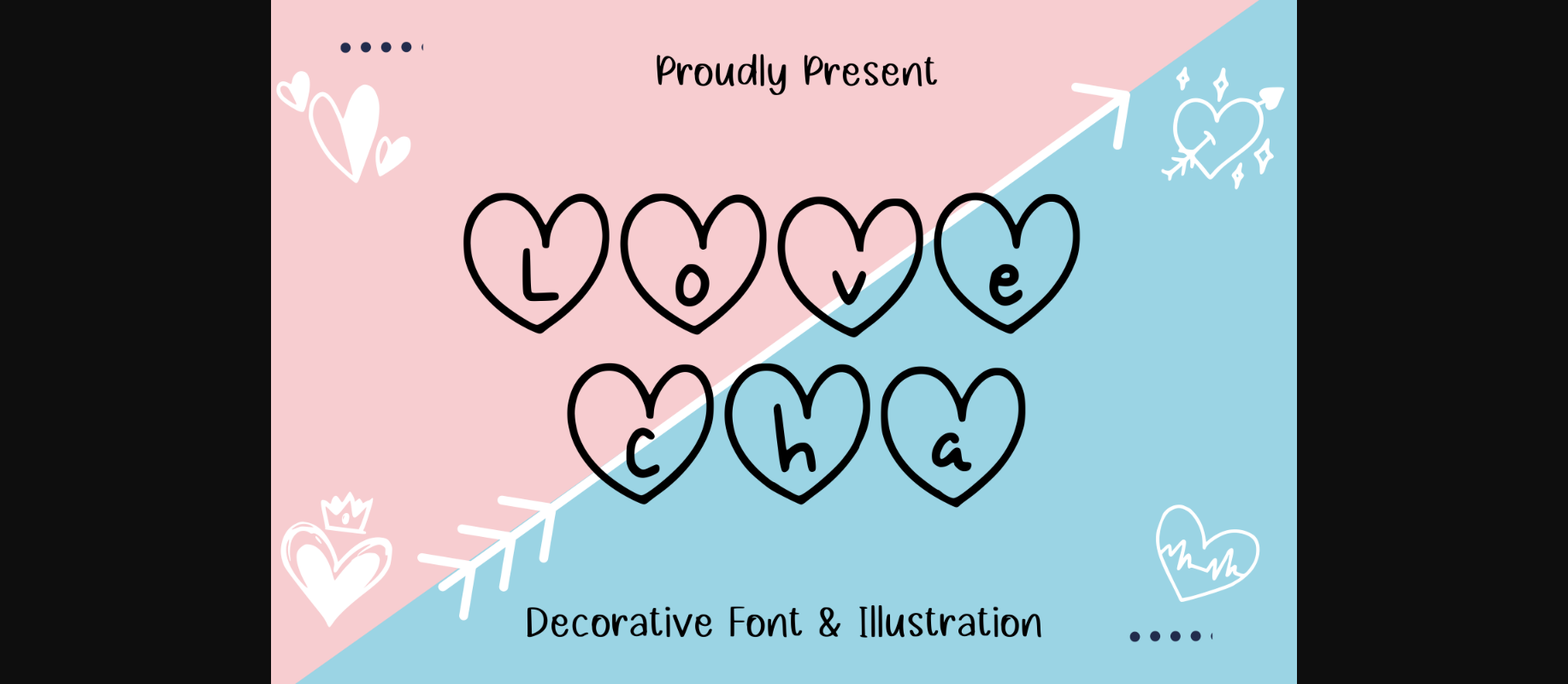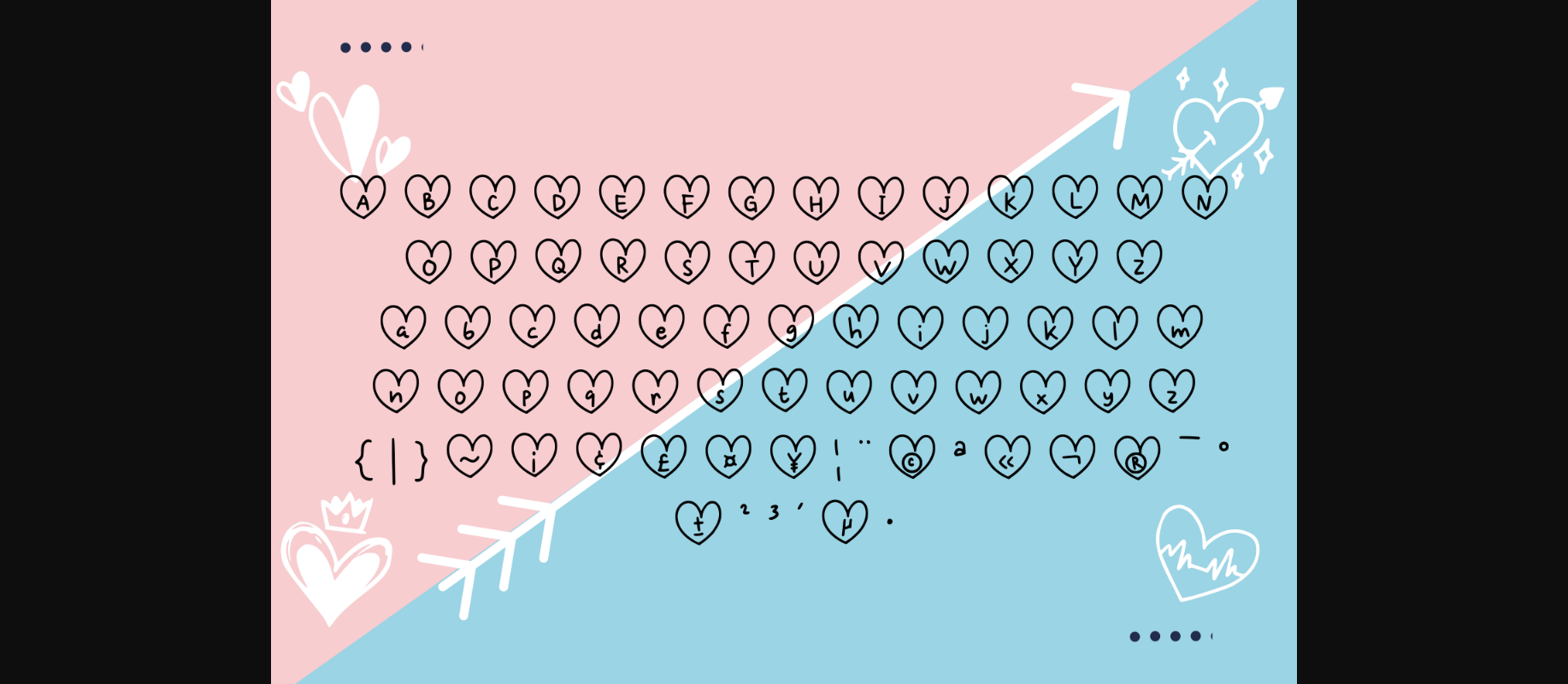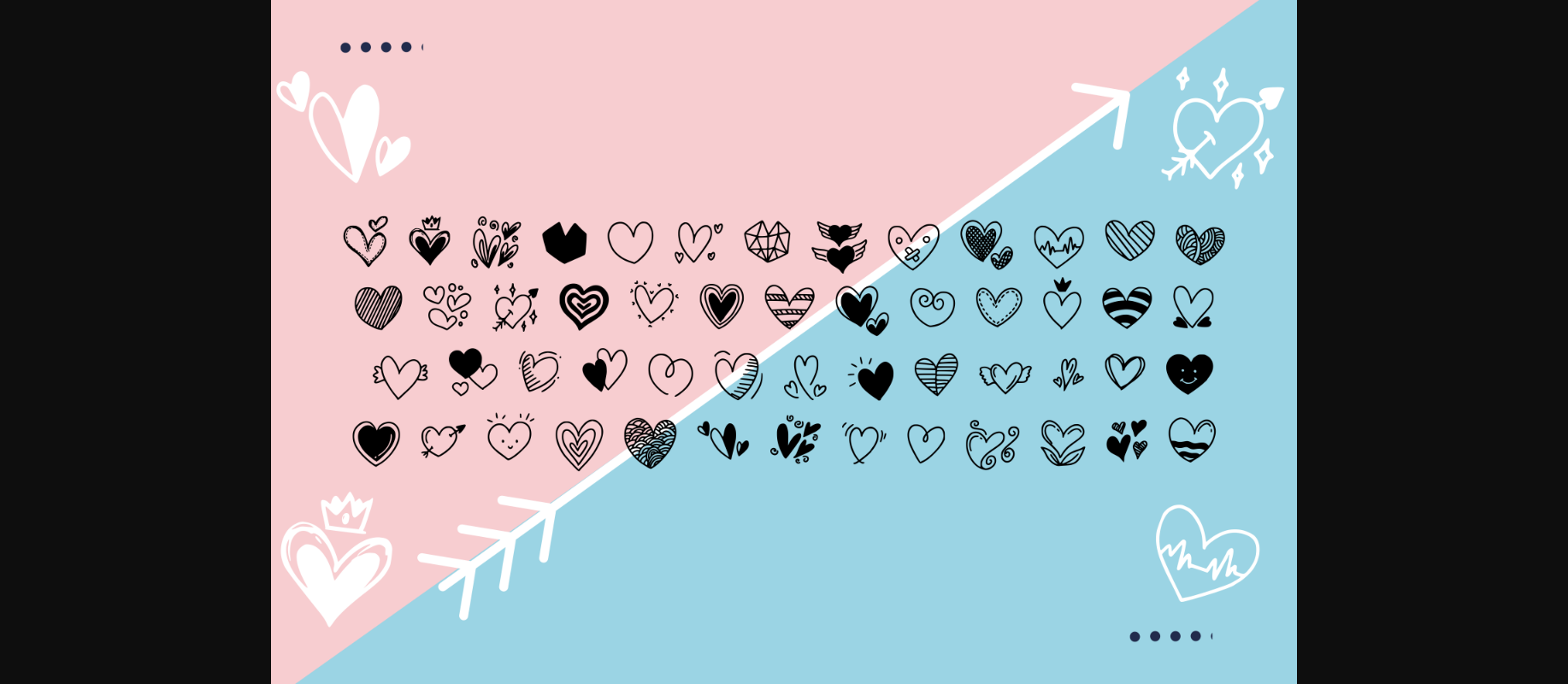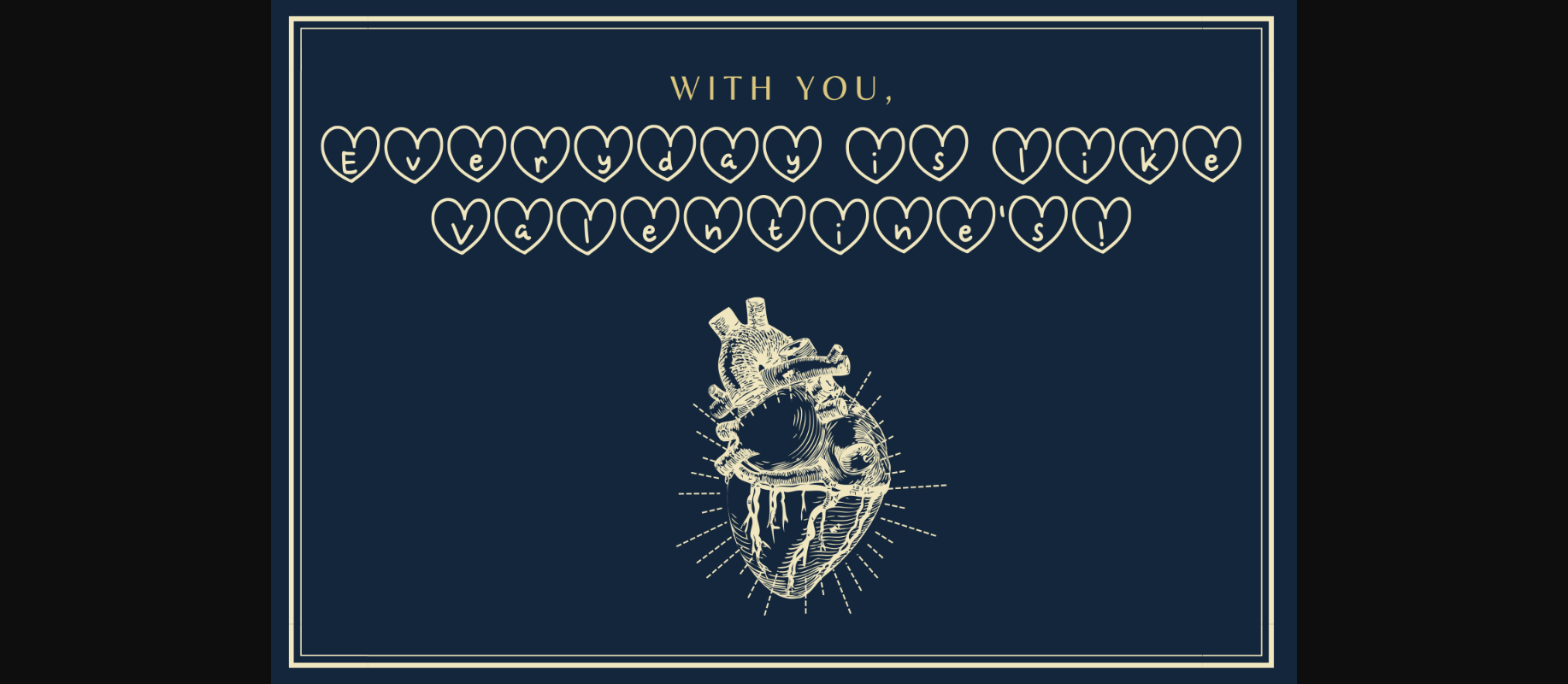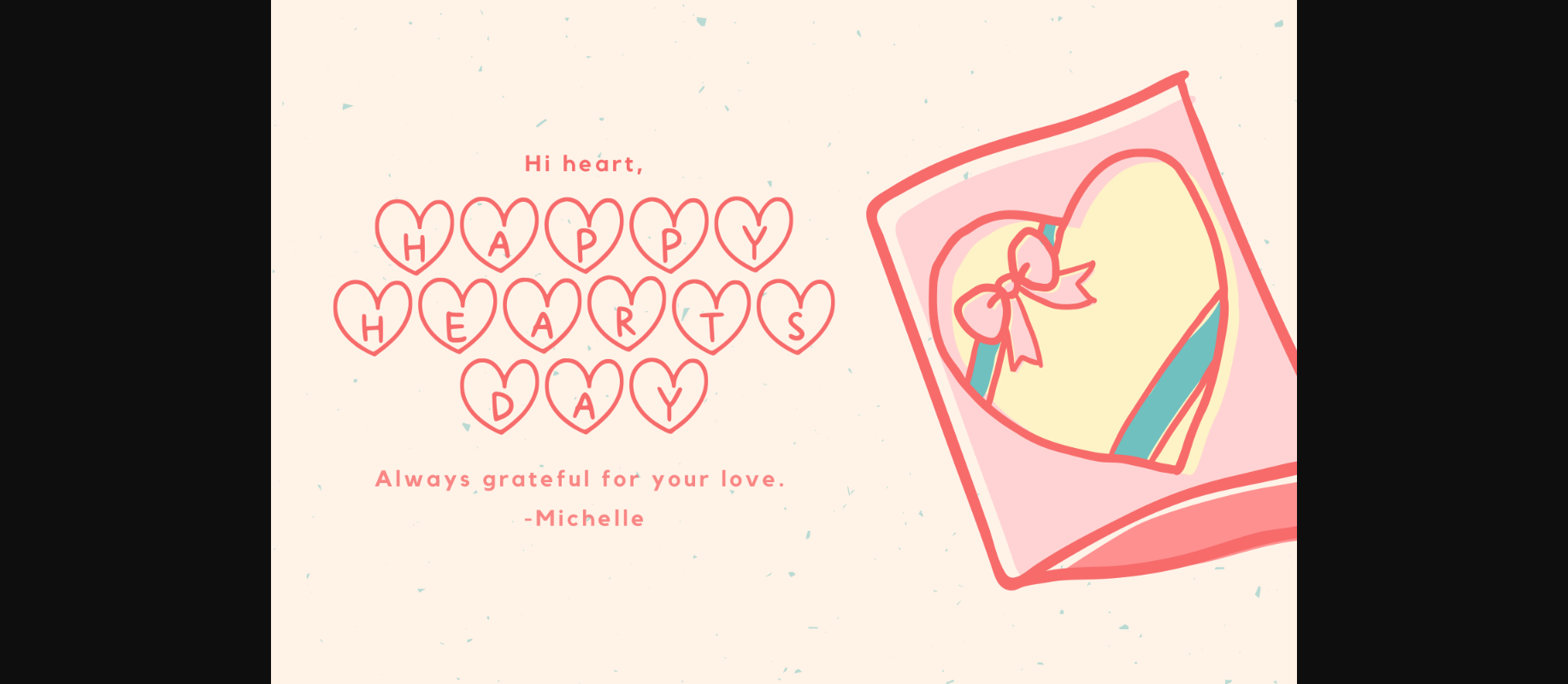
Love Cha Font
About Love Cha Font
Love Cha is an adorable and stylish duo font (decorative and dingbats). It will add an incredibly joyful touch to any of your beautiful projects, and it fits a wide range of crafty ideas, from letterheads and titles to stationery and labels.